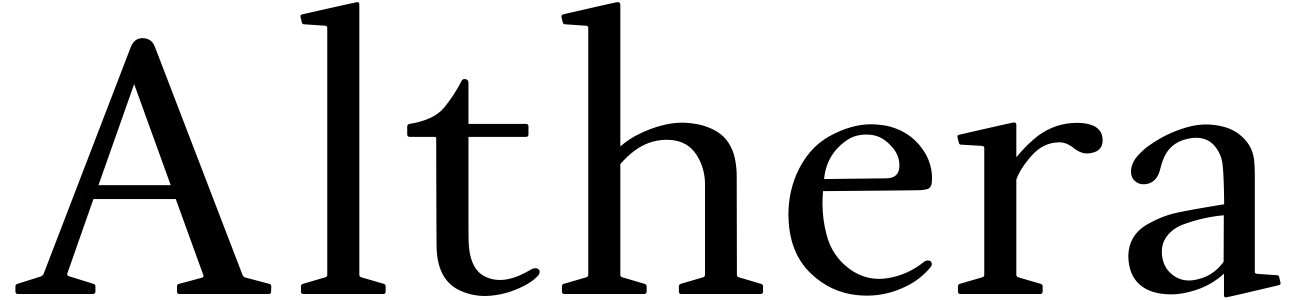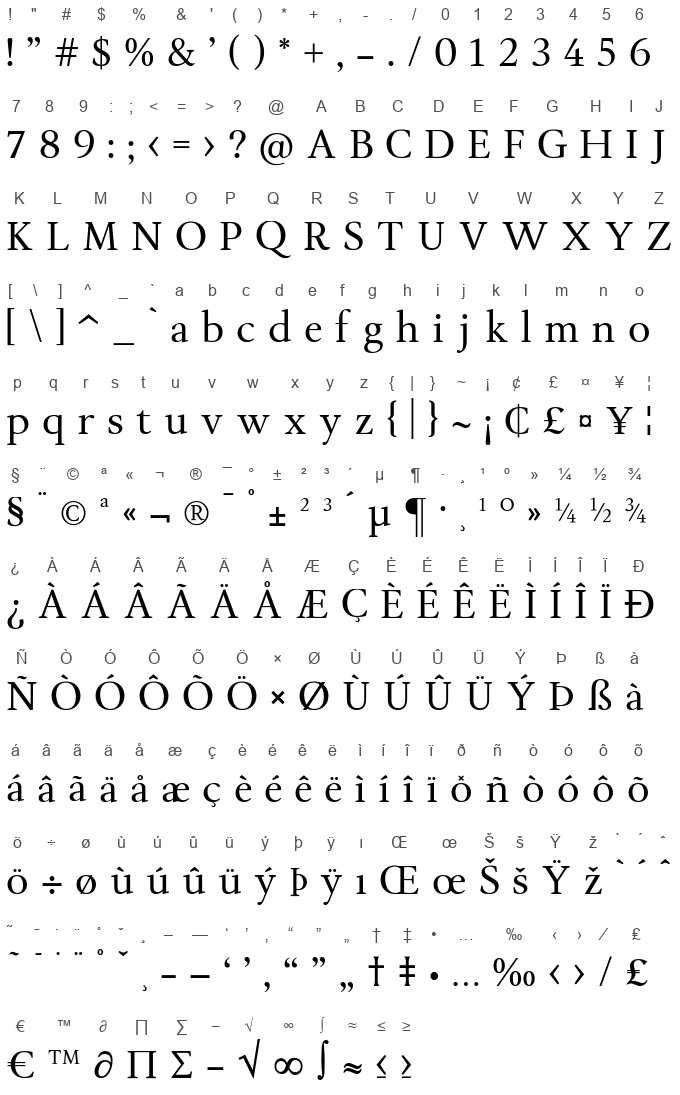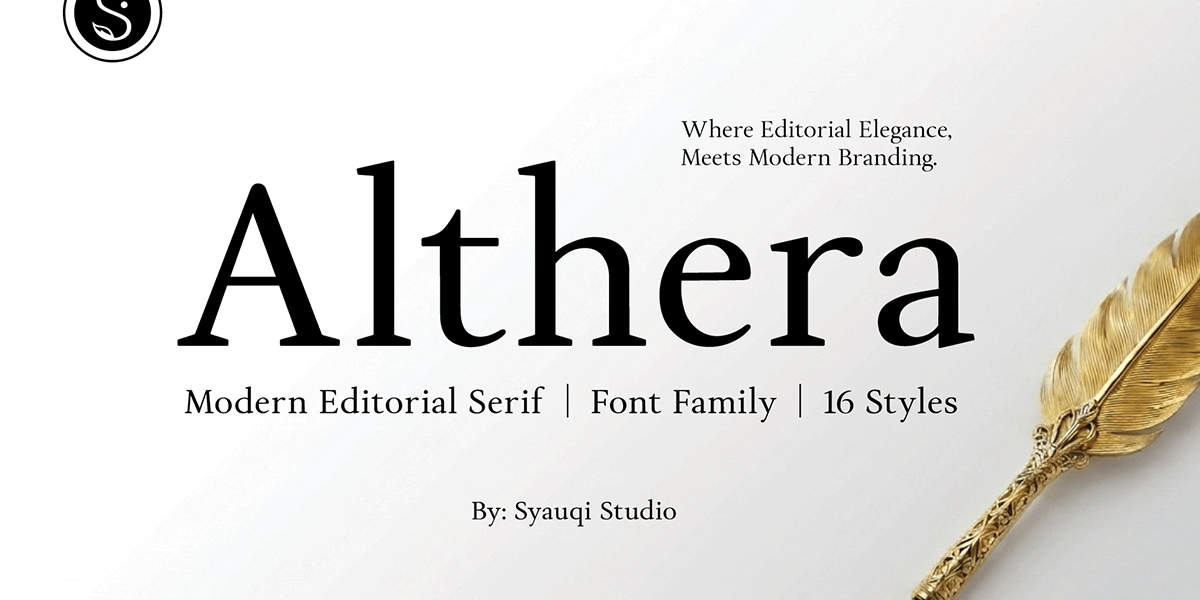
Althera is a refined modern serif crafted for editorial elegance and premium branding.   Designed with balanced proportions and smooth, controlled contrast, Althera delivers a sophisticated voice while maintaining excellent readability—making it ideal for both striking headlines and extended text.
Althera